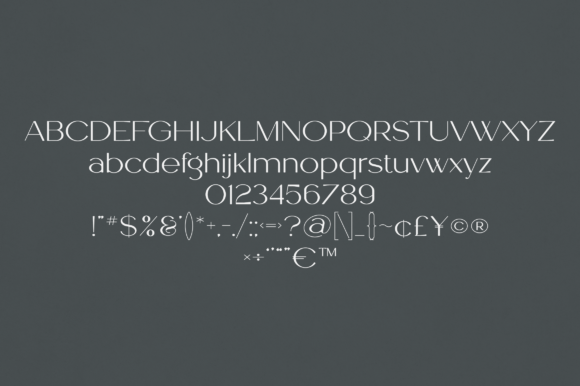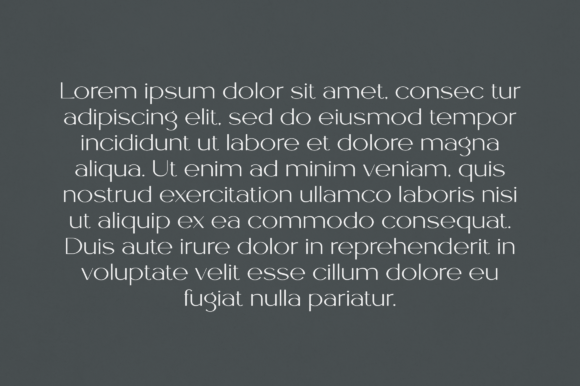
Introduction to Orchid Font
As designers, we’ve all been there – staring at a blank canvas, searching for the perfect font to bring our creative project to life. The right font can make all the difference, elevating our designs from good to great. And that’s exactly where the Orchid Font comes in – a stunning, elegant typeface that’s sure to captivate your audience.
| 👤 Author | vladfedotovv |
With its versatility and sophistication, the Orchid Font is perfect for designers looking to add a touch of high-quality elegance to their branding projects, home-ware designs, or magazine headers. Whether you’re working on a product packaging design or creating a stylish text overlay for a background image, this font is a valuable resource that’s sure to impress.
What sets the Orchid Font apart is its unique ability to shine on any background, from transparent to bold, making it a go-to design resource for designers who demand the best. And the best part? It’s available for free download, making it accessible to creatives of all levels.
Key Features of Orchid Font
- Features a transparent background, allowing for seamless integration into any design
- Includes multiple font styles and weights, providing flexibility for designers to create unique and engaging content
- High-resolution design, suitable for print and digital applications, including business cards, logos, and signage
- Perfect for designers looking for a stylish and elegant font to enhance their creative projects
Honest Review: Orchid Font
I recently came across the Orchid Font, and I must say it’s a fantastic addition to any designer’s toolkit. As a design resource, it’s a high-quality option for any creative project that requires a touch of elegance and sophistication.
What works well is the font’s versatility – it’s suitable for both body text and headlines. The Orchid Font is available for free download, which is a huge plus for designers on a budget. The transparent background is another feature that makes it easy to use in various design contexts.
- ✨ Elegant and sophisticated design
- ✨ Versatile and suitable for various design contexts
However, there are a few limitations to consider. The font’s weight and style options are somewhat limited, which may not be ideal for designers who prefer a wider range of customization options.
- ⚠️ Limited weight and style options
Overall, I’m impressed with the Orchid Font. While it may not offer the most extensive range of customization options, its elegant design and free availability make it a valuable addition to any designer’s toolkit.
Experiment with different font sizes, colors, and styles to find the perfect look for your project. The Orchid Font is a versatile design resource that can be used in a variety of creative ways. Try pairing it with other design elements to create a unique and eye-catching design.
The Orchid Font is perfect for wedding invitations, business cards, and other marketing materials. It’s also great for creating beautiful typography for blogs, websites, and social media posts. The Orchid Font is a high-quality design resource that can add a touch of sophistication to any design project.